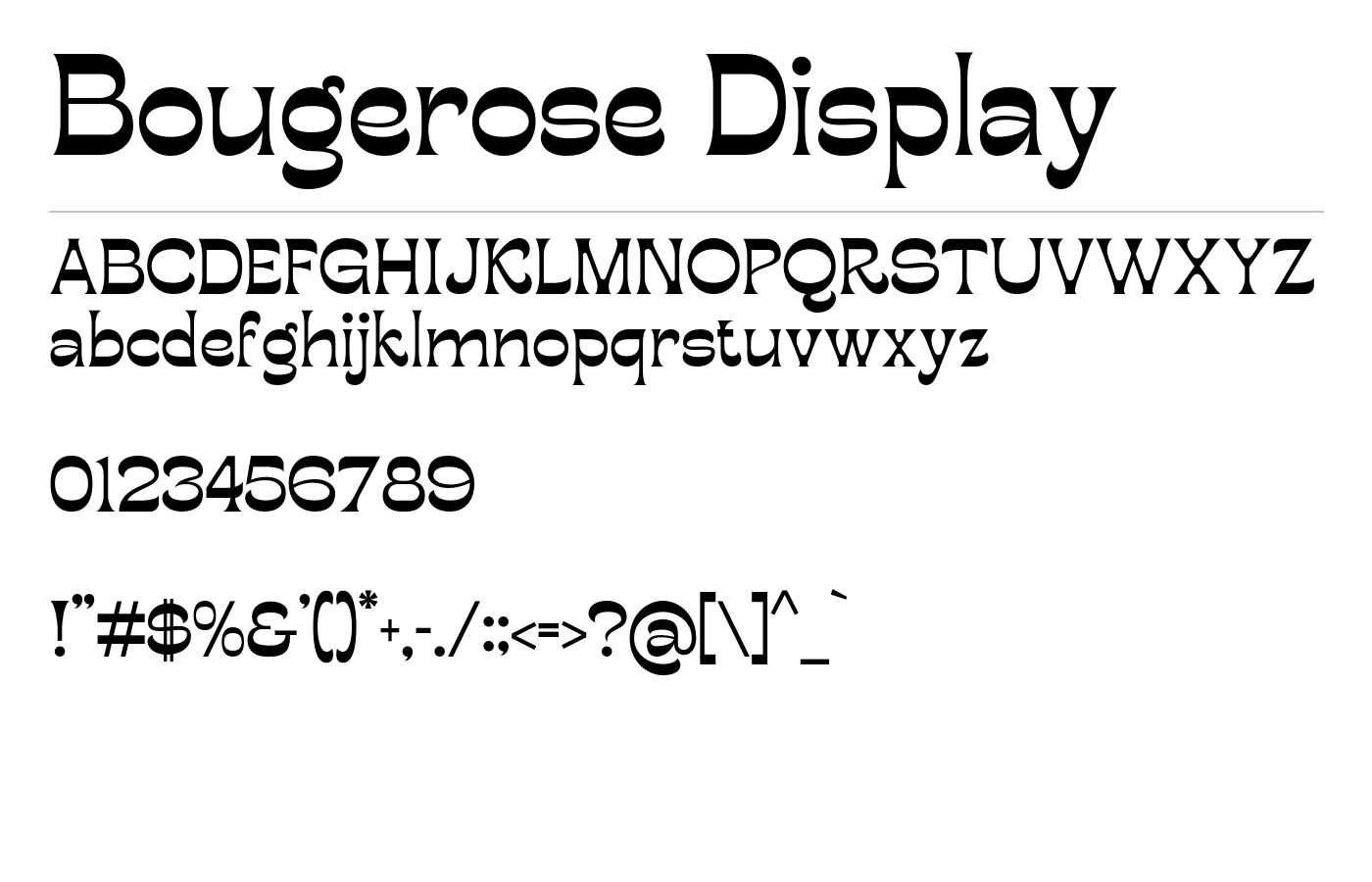
Bougerose Display is a distinctive serif font with a playful yet refined character, featuring sharp, thin serifs and high stroke contrast that add elegance to its unique letterforms. Its quirky shapes and moderate x-height create a friendly, artistic vibe, making it ideal for eye-catching headlines, logos, and creative branding that seeks to stand out with personality and style. This font works well in editorial design, posters, and packaging where a bold, artistic statement is desired.
Bougerose Display Font
About Bougerose Display Font
| Font family | Bougerose Display Font |
| Designer | Typetemp Studio - Egi Ahmad Mufid |